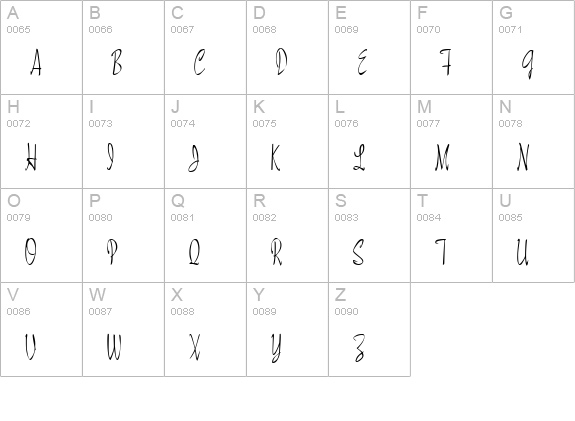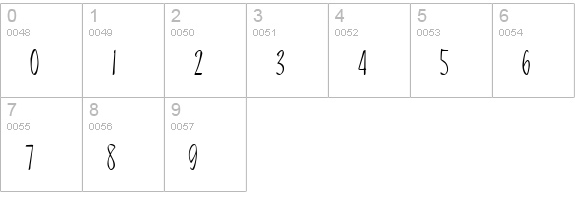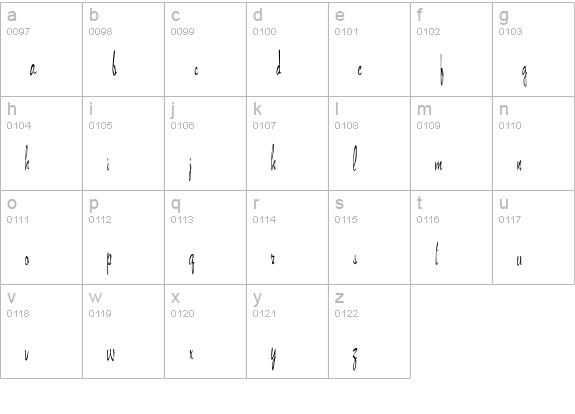
Maidstone Regular Font Details
Maidstone Regular is the standard, neutral variant in the Maidstone typeface family \xE2\x80\x94 well suited to general body text, paragraphs, and standard typographic work.
Maidstone Regular font is a versatile and elegant typeface that exudes a sense of timeless sophistication. With its clean lines and balanced letterforms, this font is perfect for a wide range of design projects, from branding and packaging to headlines and body text. The beauty of Maidstone Regular font lies not only in its aesthetic appeal but also in its practicality. Its legibility makes it a reliable choice for both print and digital mediums, ensuring that your message is clear and easily understood by your audience. One of the best features of Maidstone Regular font is that it is free. That's right, this high-quality font is freely available to download at FontsMarket.com. Whether you are a professional designer or a hobbyist, you can access this font without any cost, making it an incredibly valuable resource for your creative endeavors. Downloading Maidstone Regular font from FontsMarket.com is a seamless and straightforward process. Simply navigate to the website, search for the font, and click on the download button. Within seconds, you will have this beautiful typeface at your fingertips, ready to enhance your designs and elevate your projects to new heights. With its timeless elegance, practicality, and the added benefit of being free, Maidstone Regular font is a must-have for any designer or typographer. Don't miss out on this opportunity to enhance your creative work with this exceptional font. Download Maidstone Regular font today and let your designs shine with sophistication and style.